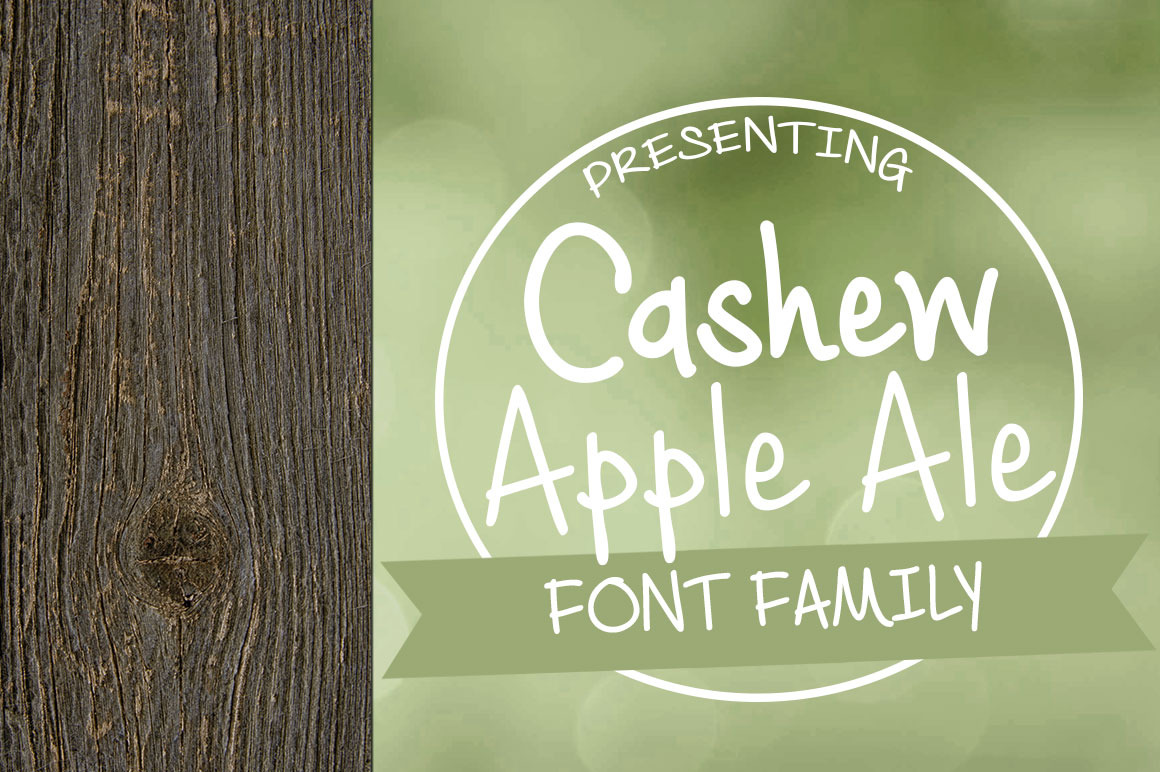
Cashew Apple Ale Font Family
The Cashew Apple Ale font family comes with two weights- regular and bold. It's a casual, handwritten font. Pretty, but legible! Great for both headlines or content.